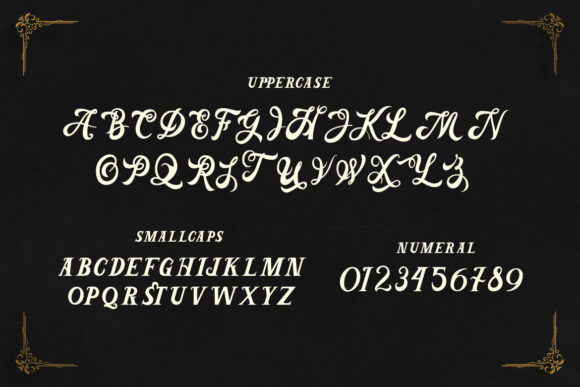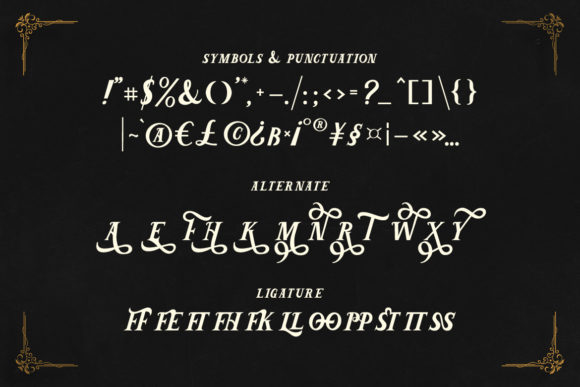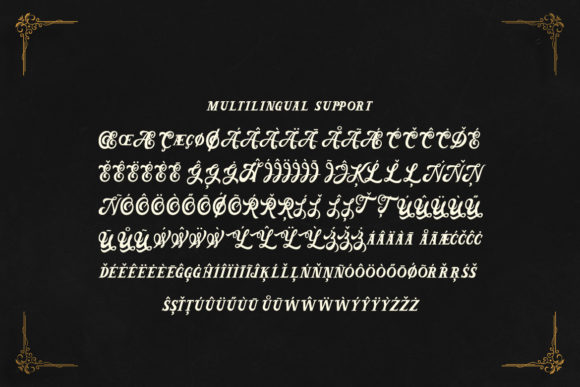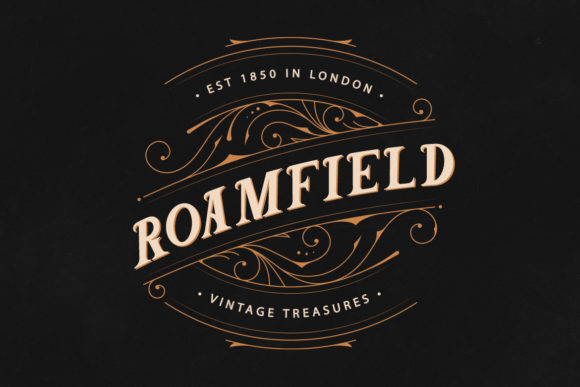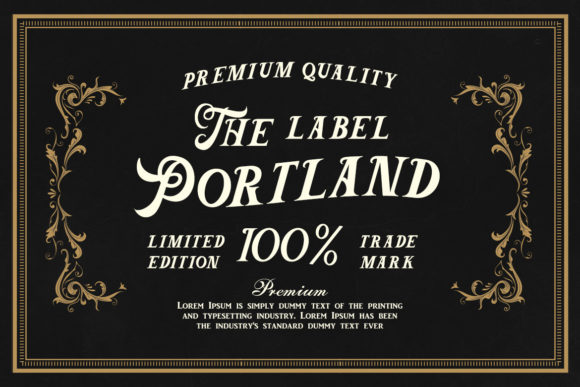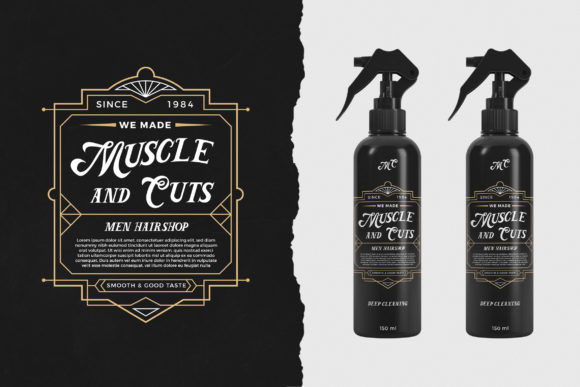
The Designer’s Delight: God Doll Font
Have you ever been in the middle of a design project, and suddenly, you’re stuck on finding the perfect font? I recall a recent experience where I was working on a branding project for a fashion client, and I just couldn’t find a font that screamed confidence and style. That’s when I stumbled upon the God Doll font, and let me tell you, it was love at first sight! 😍
A Personal Review: What I Love About God Doll Font
God Doll is a cool, assertive, and bold display font that has quickly become a staple in my design toolkit. Here are a few things that I absolutely love about it:
- ✨ PUA Encoding: This font is PUA encoded, which means that accessing all the glyphs and swashes is a breeze!
- ✅ Versatility: The font’s incredibly versatile style makes it perfect for a wide range of design projects, from branding and advertising to packaging and more.
- 💥 Impactful: God Doll font is designed to make a statement. Its bold and assertive style is sure to grab attention and leave a lasting impression.
While God Doll font is an amazing addition to any design project, there are a few small quirks to be aware of:
- 🤔 Glyph Overload: With so many glyphs and swashes available, it’s easy to get overwhelmed. Take some time to explore the font and get familiar with the different options.
- ⚠️ Legibility: While the font is bold and assertive, it may not be the best choice for body text or smaller font sizes. Use it for headlines and titles for maximum impact.
A Practical Guide to Using God Doll Font
The God Doll font was designed with one goal in mind: to create a bold and assertive display font that would make a statement. The designer, inspired by the world of fashion and beauty, set out to create a font that would exude confidence and style. The result is a font that’s both versatile and impactful, perfect for designers who want to make a lasting impression.
Q: Is God Doll font suitable for body text?
While God Doll font is a beautiful and bold display font, it may not be the best choice for body text. Its bold style and intricate details make it more suitable for headlines and titles.